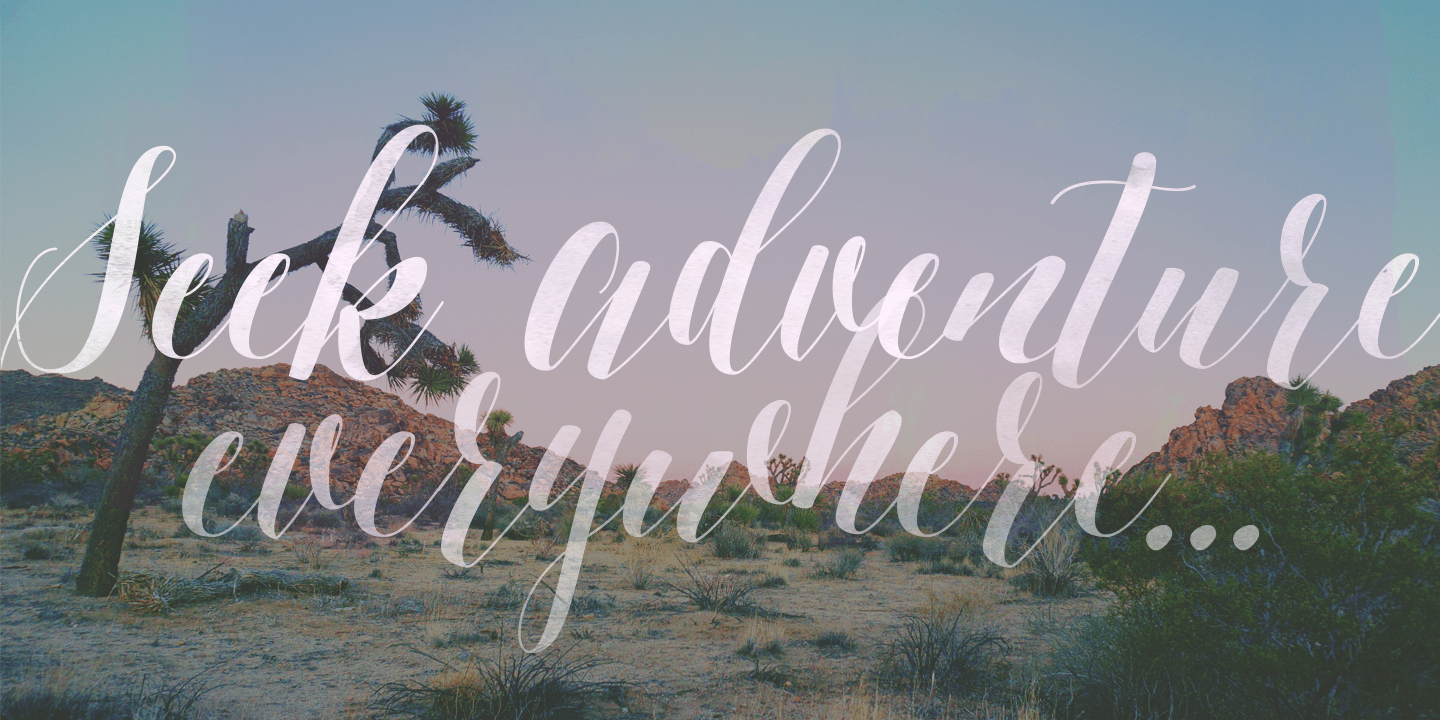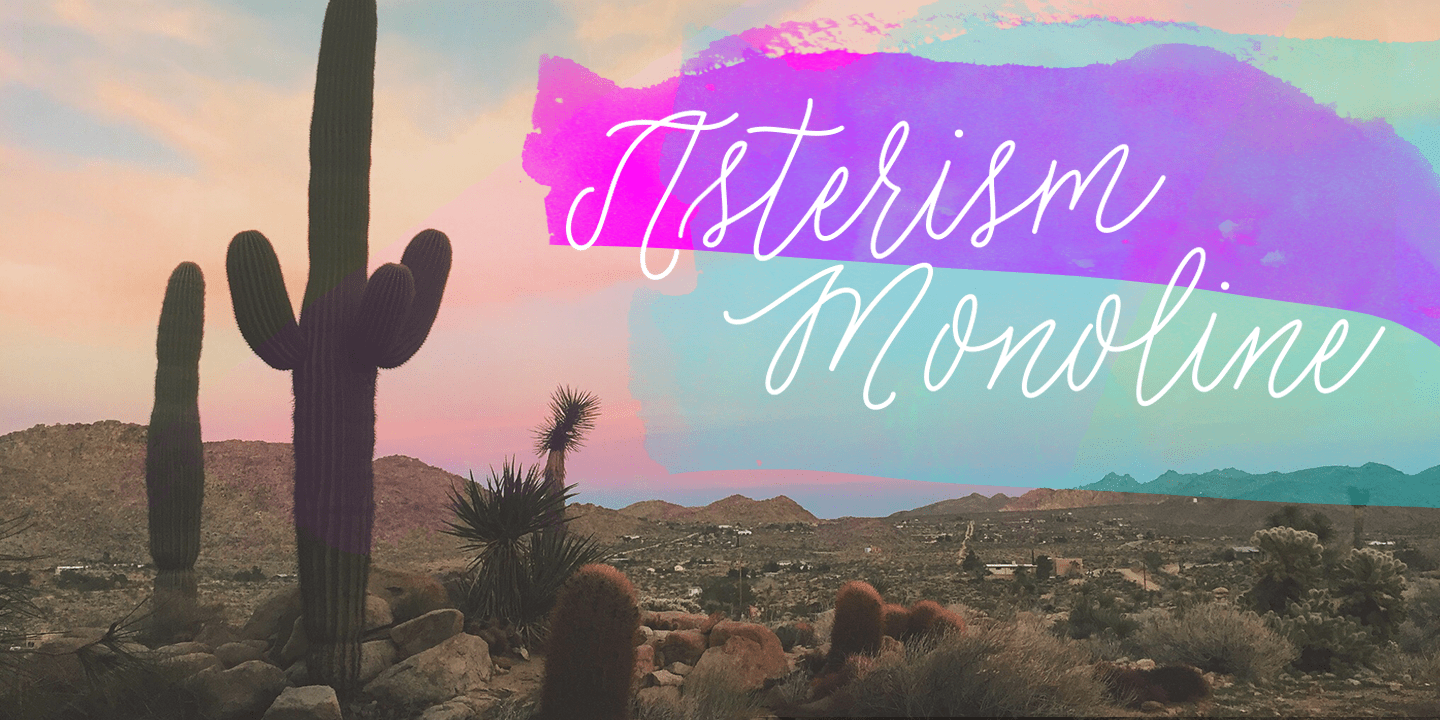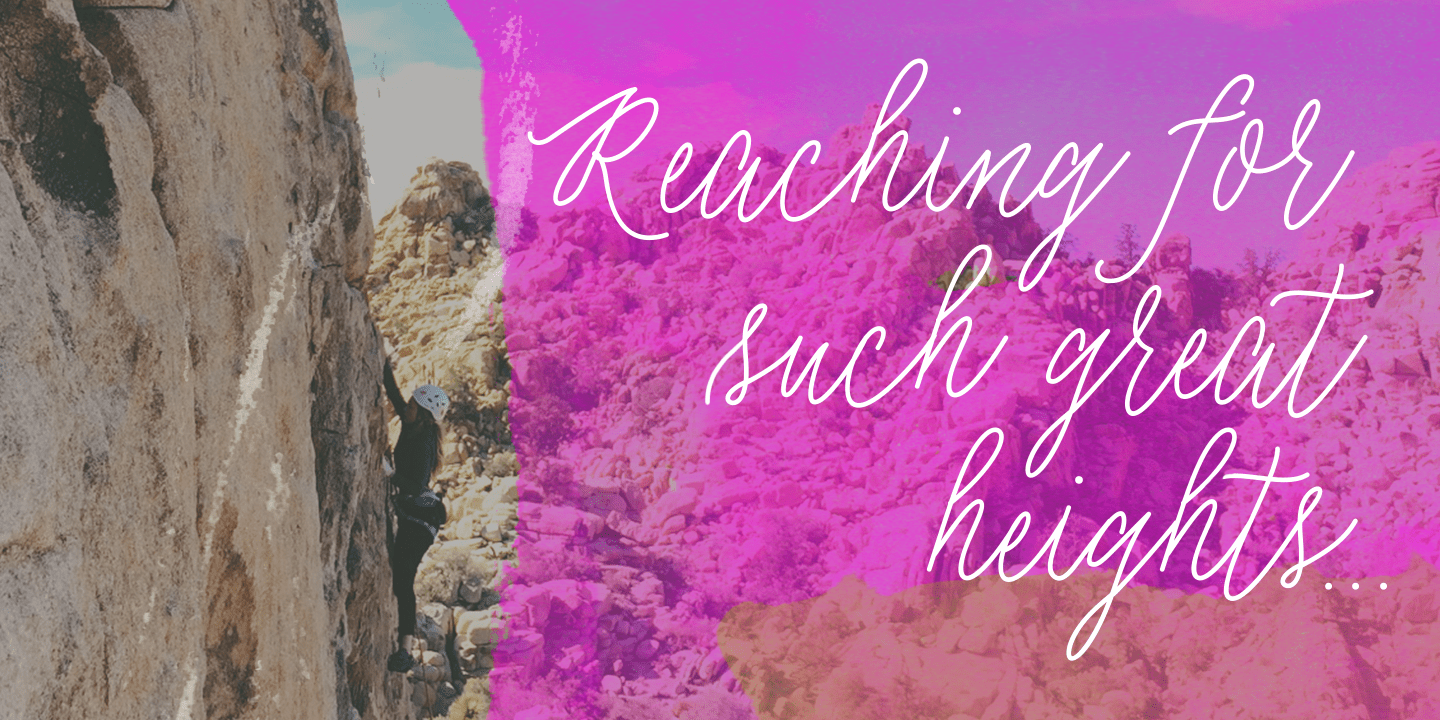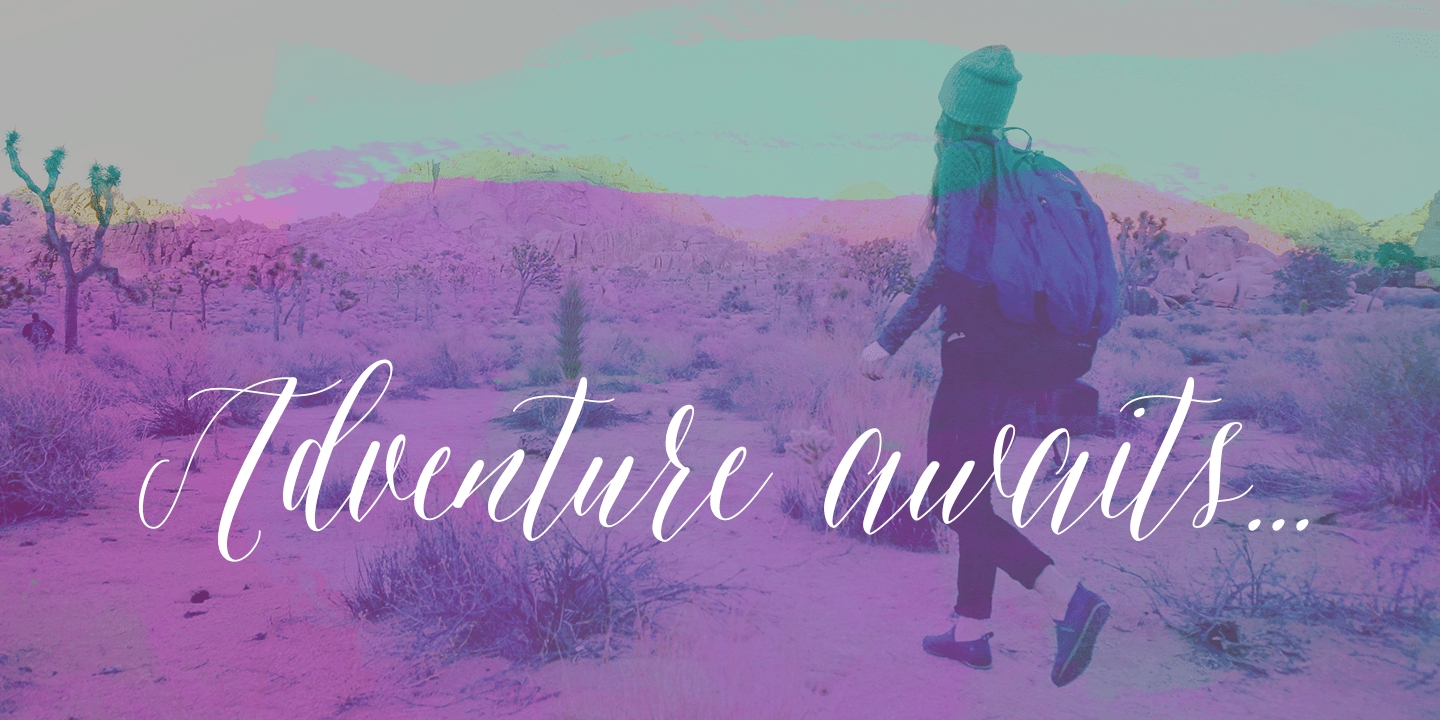
About Asterism Clean
This is the smooth line version of the hand-drawn font, Asterism. Asterism is a calligraphy style font with a moving baseline and lots of shining personality. This hand written style font is based on one of Molly's signature calligraphy styles and…